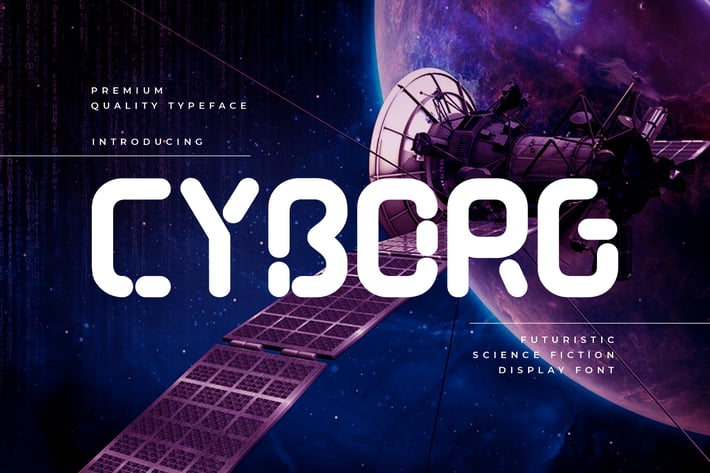
Cyborg - Futuristic Technology Typeface
Introducing Cyborg font. Are you looking for a bold and solid display font that has a futuristic technology feeling? We can help! Try to download our Cyborg Futuristic font. The font is suitable to use for many occasion such as game, music, movie title, brand, technology, space and many more :)